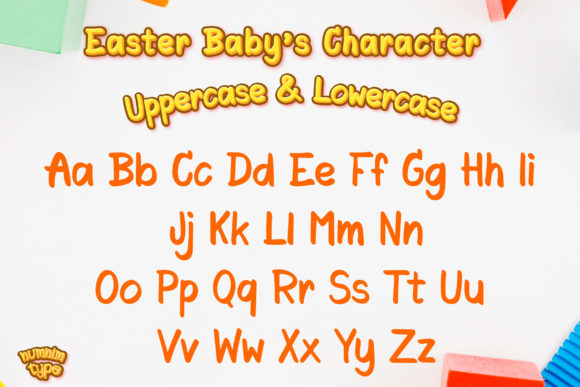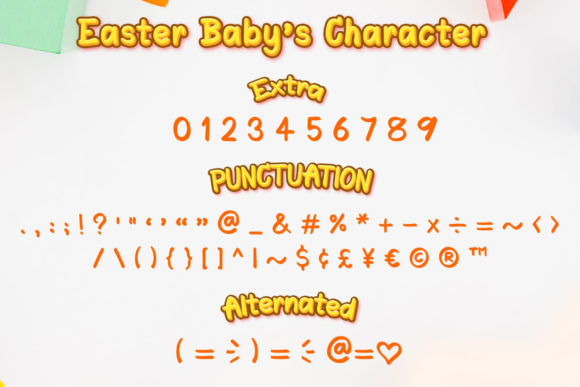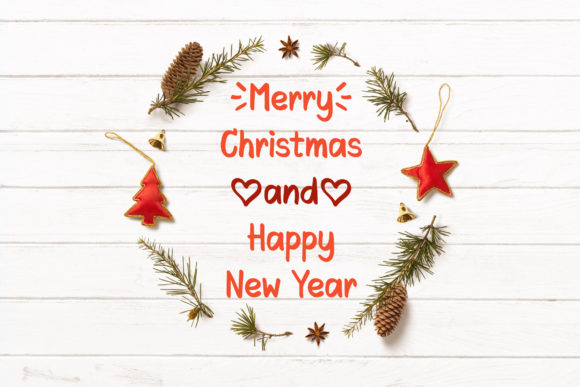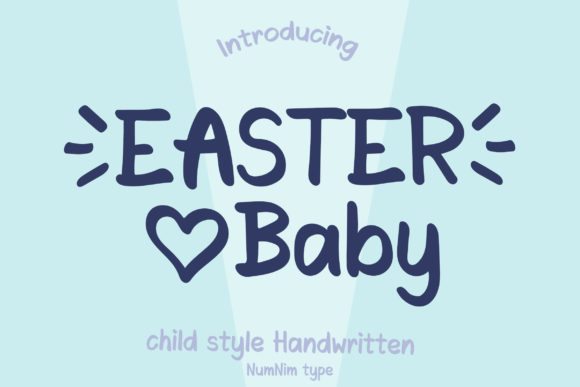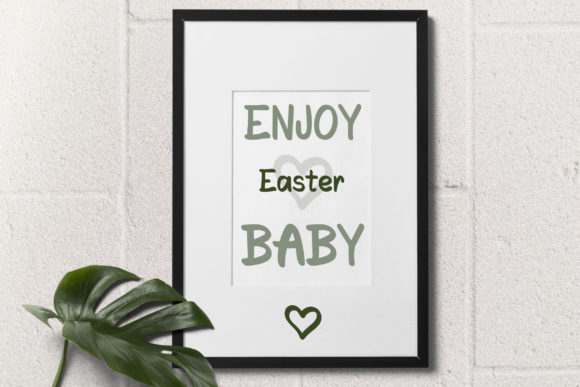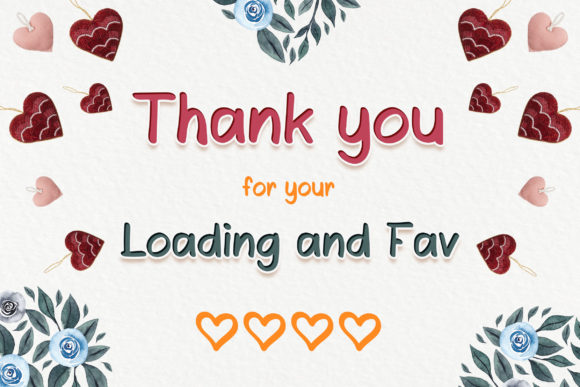
Easter Baby Font
About Easter Baby Font
Introducing “Easter Baby,” a joyful and friendly handwritten font that brings the spirit of Easter and the playful innocence of childhood to your designs. With its cute doodle elements and versatile style, this font is perfect for creating lovely designs for school or child-related projects.
Easter Baby captures the joy and excitement of Easter, making it ideal for creating designs that celebrate this special holiday. The handwritten style adds a personal and authentic feel to your creations, evoking a sense of warmth and happiness.
Infuse your designs with the charm of Easter Baby and create delightful greeting cards for Easter celebrations. From adorable bunnies and colorful eggs to playful doodles, this font brings a sense of whimsy and joy to your Easter-themed designs. Let your imagination run wild as you combine the cute doodle elements with the handwritten letters to create eye-catching and heartfelt Easter greetings.
Design engaging educational materials for schools and classrooms. Whether you’re creating worksheets, flashcards, or posters, Easter Baby adds a playful and friendly touch to your educational resources. The cute doodle elements can be incorporated to enhance the visual appeal and make learning more fun and interactive for young learners.
Bring the spirit of Easter to your social media posts and digital content. Easter Baby’s versatile style makes it perfect for creating eye-catching visuals that capture the attention of your audience. Whether you’re sharing Easter recipes, DIY crafts, or simply spreading holiday cheer, this font adds a touch of whimsy and charm to your social media graphics.
Create personalized invitations for Easter egg hunts, parties, and family gatherings. Easter Baby’s joyful and friendly look sets the right tone for celebrating this special holiday with loved ones. The cute doodle elements can be used to embellish your invitations and add a playful touch that will get everyone excited about the event.
Craft adorable stationery art and scrapbook pages using Easter Baby. Whether you’re documenting your Easter memories or creating handmade gifts, this font brings a sense of sweetness and nostalgia to your creations. From journaling to creating borders and frames, the cute doodle elements can be used to add an extra touch of creativity and charm.
Easter Baby’s versatility extends beyond Easter-themed projects. Its friendly and playful style can be used for various child-related designs, such as baby shower invitations, birth announcements, and nursery decor. Let the cute doodle elements and handwritten letters create a whimsical and inviting atmosphere for these special occasions.
Embrace the joy and innocence of childhood with Easter Baby as your creative companion. Let its joyful and friendly handwritten style add a touch of sweetness and playfulness to your designs. This font is designed to bring a smile to your face and create a connection with your audience.
Whether you’re a professional designer, a teacher, a parent, or someone who loves to create, Easter Baby offers endless possibilities for your creative endeavors. Let its joyful and friendly style inspire you to create designs that are full of love and happiness.
Choose Easter Baby and let its cute doodle elements and versatile style bring a touch of joy and playfulness to your designs. Whether you’re creating for Easter, school projects, or child-related designs, this font will add a delightful and inviting element to your projects.
Unlock the whimsical charm of Easter Baby and let it be the voice of your creativity. Embrace its joyful and friendly handwritten style and create designs that spread happiness and capture the magic of childhood. Easter Baby is here to add a touch of sweetness and playfulness to your creative projects.
Discover the magic of Easter Baby as you embark on your design journey. Let its cute doodle elements and versatile style